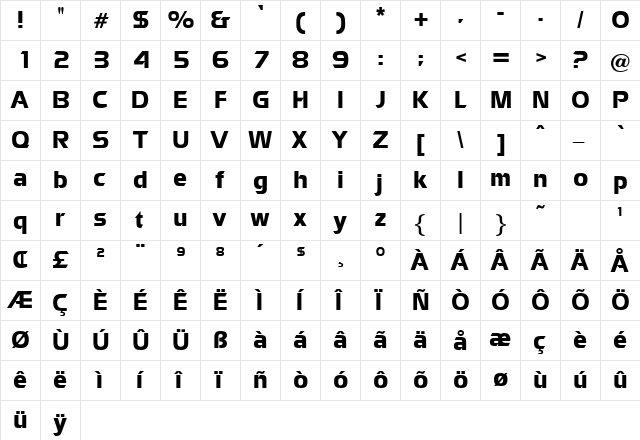
Zapotec Regular
Design Context for Zapotec Typeface
Zapotec offers clean, dependable letterforms without strong stylistic allegiance, making it a practical choice for designers who need flexibility.